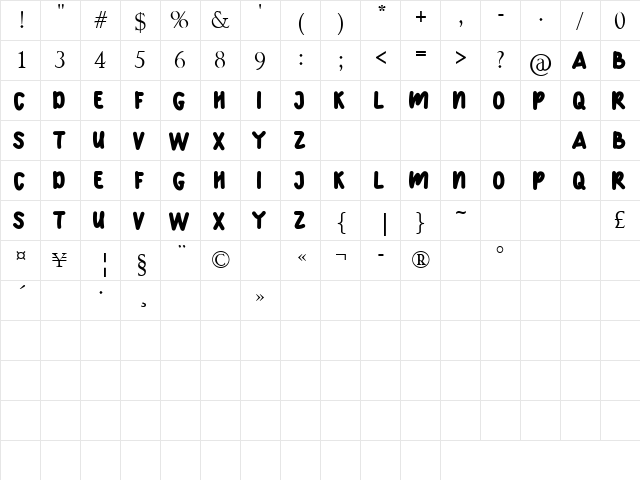
BENITO Regular
| Designer | Nissa Nana |
Design Context for BENITO Typeface
BENITO is a composed and adaptable typeface that performs quietly and consistently across a wide range of design contexts.